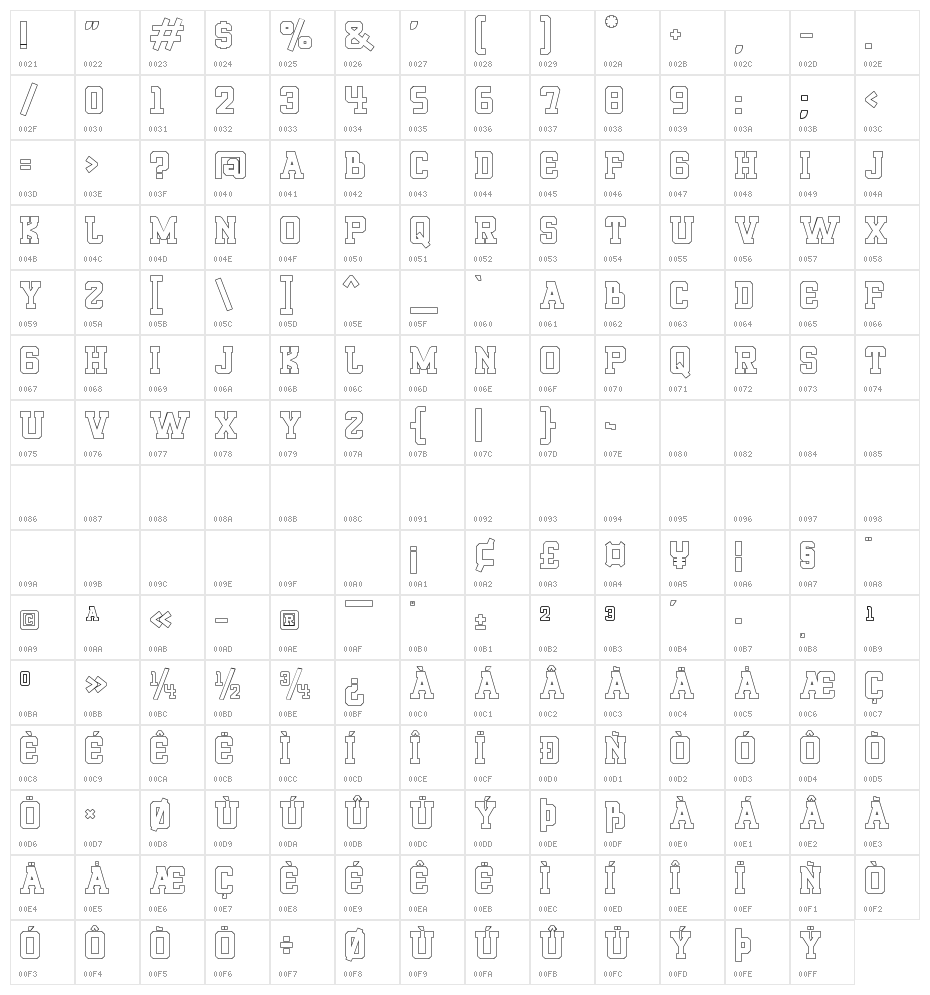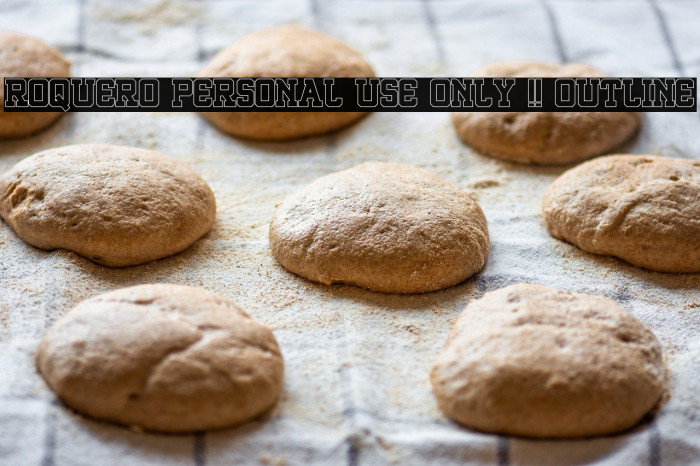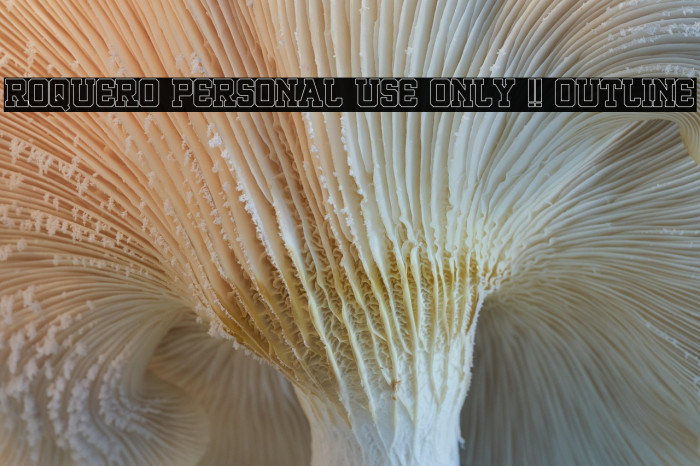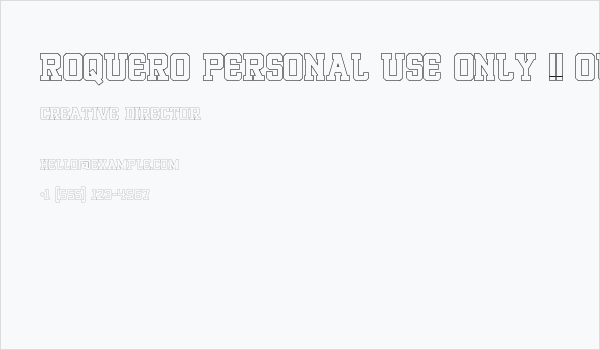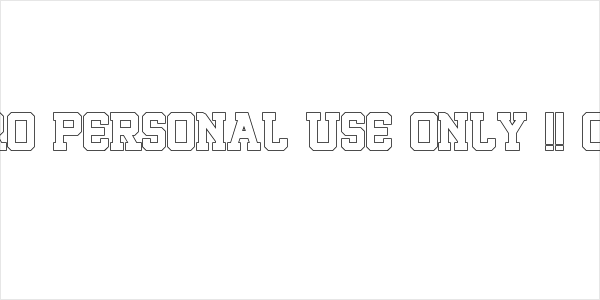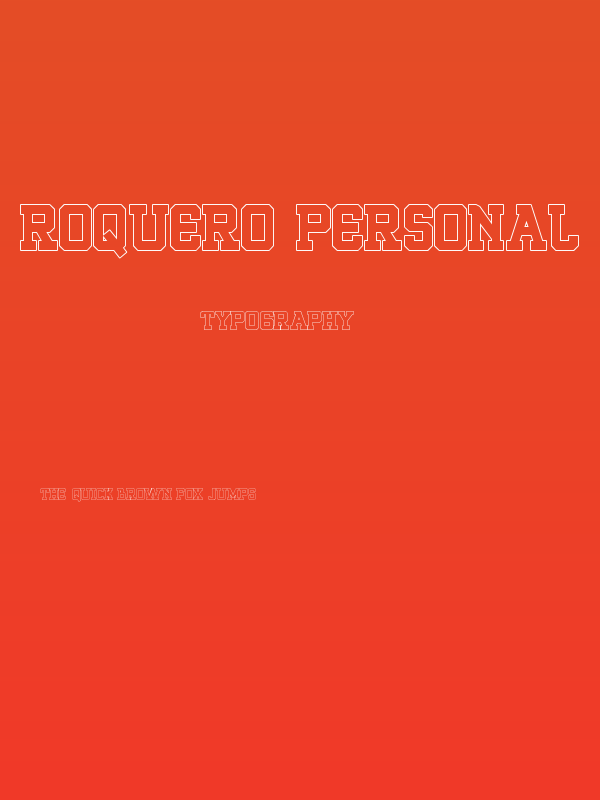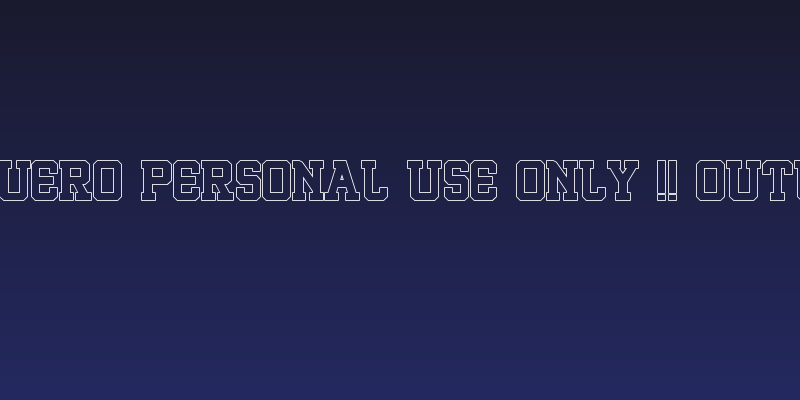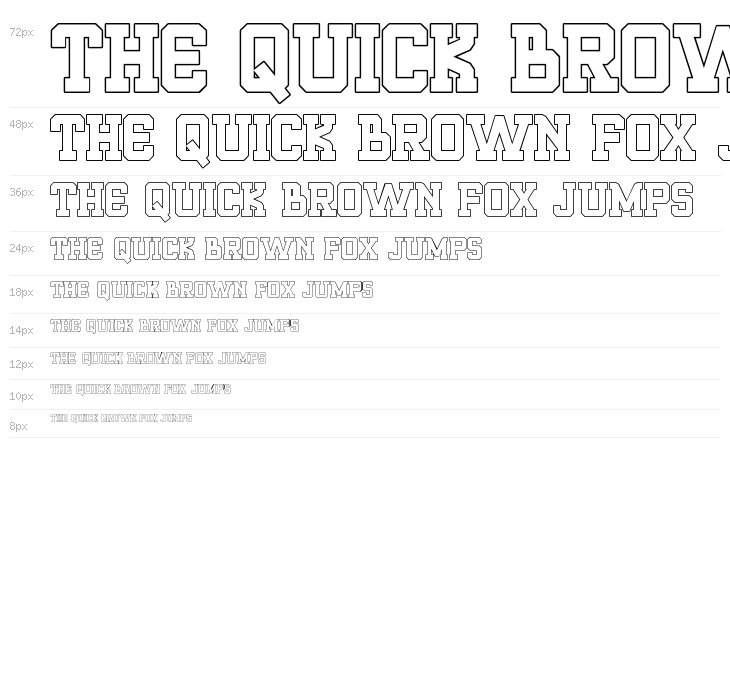
ROQUERO Personal Use Only !! Outline Font
ROQUERO Personal Use Only !! Outline Description
This font features a bold, outlined style with a geometric and blocky appearance. Each character is defined by thick, uniform lines that create a strong and impactful presence. The uppercase letters are consistent in height and width, providing a cohesive look. The numbers and special characters maintain the same bold outline, ensuring uniformity across all elements. This font's design is reminiscent of classic sports or collegiate styles, making it ideal for projects requiring a strong, authoritative typeface.